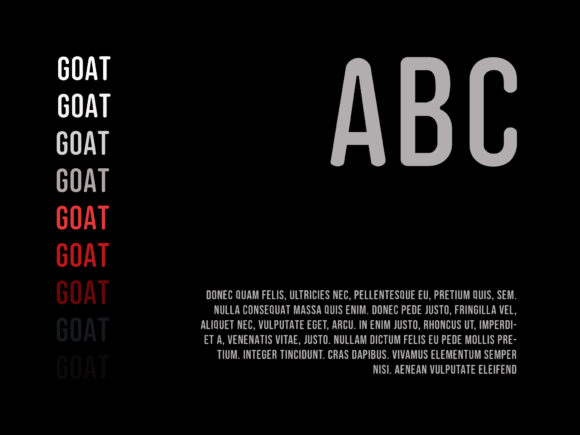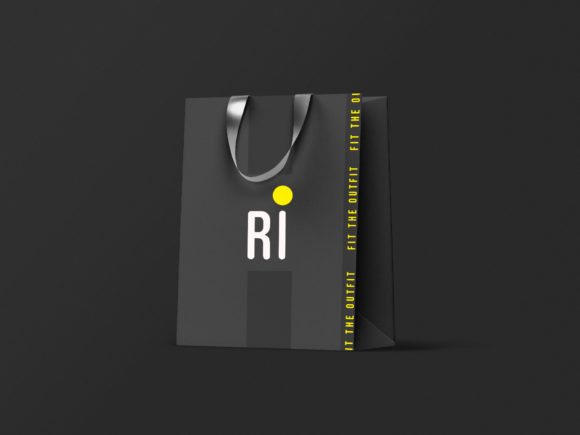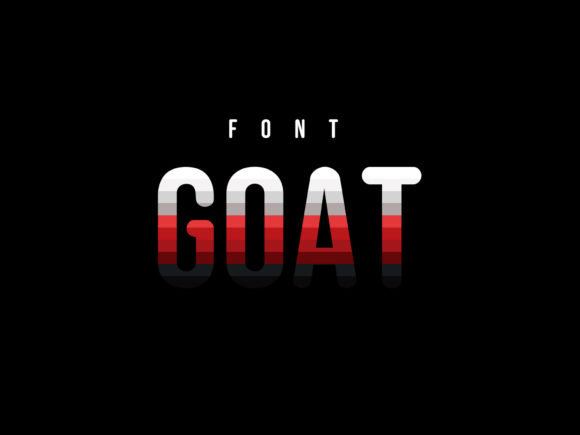
Introducing Goat Font: The Modern, Minimal, and Bold Sans Serif for Your Design Needs
In the world of typography, fonts play a crucial role in making or breaking a design. A well-chosen font can elevate your project, making it more engaging, readable, and aesthetically pleasing. If you’re a designer, craftsperson, or simply someone who appreciates beautiful typography, you’re in luck! Meet Goat Font, a modern, minimal, and bold sans serif font that’s about to become your new favorite go-to typeface.
What is Goat Font?
Goat Font is a sleek and contemporary sans serif font designed to cater to a wide range of design needs. Its clean and simple style makes it an incredibly versatile typeface, suitable for various projects, from branding and advertising to packaging and digital media. The font’s minimalist approach ensures that your message takes center stage, while its bold strokes provide a striking visual impact.
Key Features of Goat Font
- Modern and Minimal: Goat Font boasts a fresh, modern look that’s both stylish and understated. Its minimalist design ensures that your text remains clear and easy to read.
- Bold Sans Serif: The font’s bold strokes add a touch of confidence and sophistication to your design, making it perfect for headlines, titles, and emphasis text.
- Highly Versatile: Goat Font’s simplicity and elegance make it suitable for a wide range of design applications, including logos, business cards, posters, and digital media.
- Easy to Read: The font’s clean lines and well-spaced characters ensure excellent readability, even at smaller font sizes.
Why Choose Goat Font?
With so many fonts available, why should you choose Goat Font for your next project? Here are a few compelling reasons:
- Uniqueness: Goat Font’s modern and bold design sets it apart from more traditional typefaces, giving your project a fresh and distinctive look.
- Flexibility: The font’s versatility means you can use it for a wide range of projects, from elegant and sophisticated to bold and playful.
- Time-Saving: With Goat Font, you can achieve professional-looking results without spending hours searching for the perfect font or tweaking the design.
Design Applications for Goat Font
Goat Font’s adaptability makes it an excellent choice for various design applications, including:
- Branding and Logos: Create a lasting impression with a bold and memorable logo that showcases your brand’s personality.
- Advertising and Marketing: Use Goat Font to craft eye-catching headlines and emphasis text that grabs attention and communicates your message effectively.
- Packaging Design: Add a touch of modern sophistication to your product packaging with Goat Font’s clean and elegant design.
- Digital Media: Enhance your website, social media, or digital publications with Goat Font’s bold and readable style.
Tips for Using Goat Font Effectively
To get the most out of Goat Font, consider the following tips:
- Experiment with Font Sizes: Goat Font’s bold design works well in various font sizes, from large headlines to smaller body text.
- Combine with Other Fonts: Pair Goat Font with complementary typefaces to create visual interest and add depth to your design.
- Play with Colors: Take advantage of Goat Font’s bold design by using contrasting colors to make your text stand out.
In conclusion, Goat Font is an exceptional sans serif font that offers a perfect blend of modernity, minimalism, and boldness. Its versatility, readability, and aesthetic appeal make it an excellent choice for designers, craftspersons, and anyone looking to elevate their typography. Whether you’re working on a branding project, advertising campaign, or digital publication, Goat Font is sure to become your new go-to typeface.